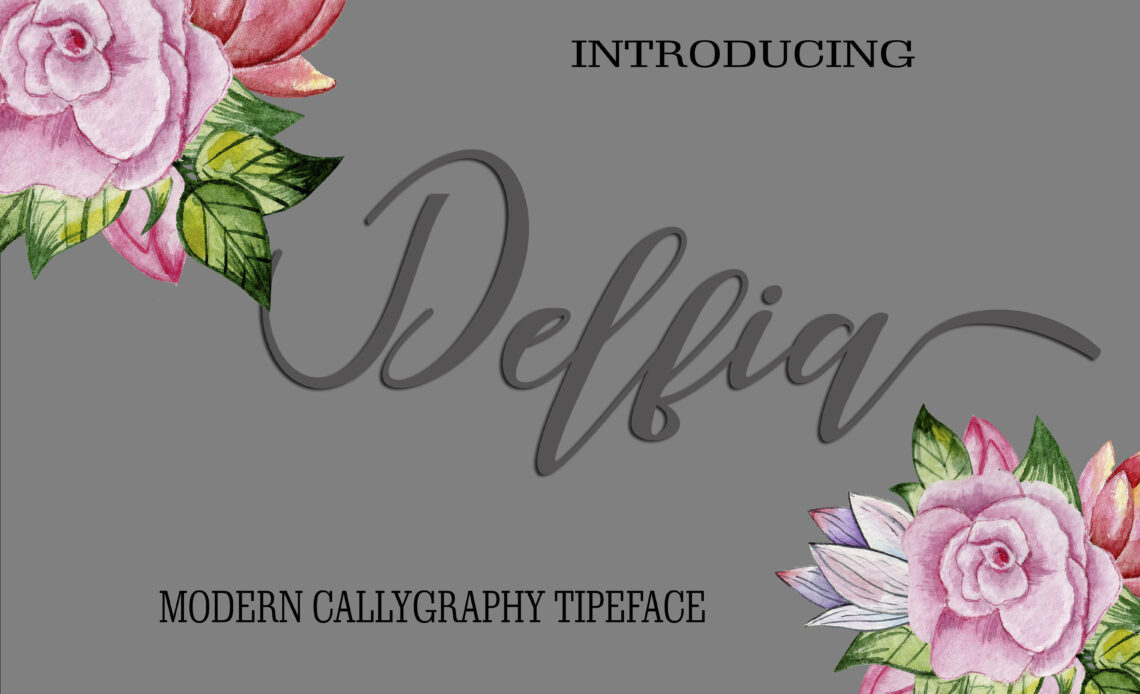
Delfia Font: The Epitome of Elegance and Allure
Immerse yourself in the enchanting world of Delfia Font, a masterpiece crafted by Maydhen Studio. This script font exudes a captivating charm that will elevate your designs to new heights.
With its graceful curves and alluring strokes, Delfia Font transforms ordinary words into exquisite works of art. Its meticulously crafted letters possess a magical ability to capture attention and ignite emotions.
Whether you're a seasoned designer or aspiring artist, Delfia Font will be your trusted ally in creating visually stunning designs. Its versatility knows no bounds, lending itself flawlessly to a myriad of projects.
Indulge in the luxurious feel of Delfia Font as you pen heartfelt letters, craft captivating invitations, or design breathtaking posters. Its enchanting presence will add a touch of elegance and allure to every project you undertake.
Embrace the power of Delfia Font and witness the transformation of your designs. Its captivating allure will captivate your audience, leaving an unforgettable impression that will linger long after they've laid their eyes upon your creations.